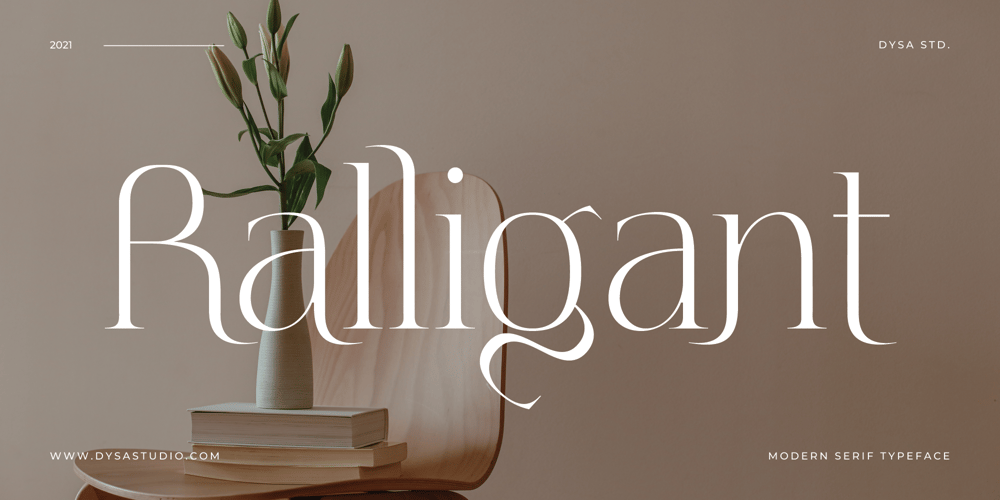
Ralligant Font Family was designed by Yusup Saputra and published by DYSA Studio. Ralligant contains 1 styles and family package options. Ralligant a New Modern Serif Typeface. This another collection of Serif is perfect for your next branding project, excellent for your business. Ralligant have a smooth edges, so this font gives an authentic handcrafted feel style.